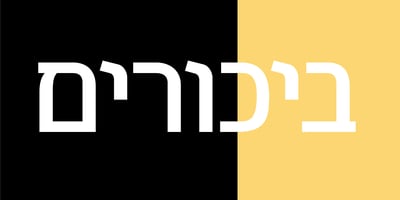
The Lakreeut MF Font is exceptionally well-suited for projects that demand a majestic, sacred, or monumental feel. Its design often draws inspiration from ancient or traditional scripts, making it an excellent choice for religious texts, historical documents, and academic publications related to archaeology or cultural studies. It's also ideal for museum exhibits, commemorative plaques, and formal scrolls, where a sense of enduring legacy and authenticity is desired. Furthermore, consider Lakreeut MF Font for book covers for historical non-fiction, educational materials on ancient cultures, and branding for institutions with a deep-rooted heritage. Its strong, authoritative presence can also be leveraged effectively in monuments and spiritual art.
What makes the Lakreeut MF Font so exciting is its profound ability to transport viewers to a distant past, evoking the reverence and weight of ancient inscriptions. It often features robust, chiseled letterforms or a dignified rhythm that sets it apart from more contemporary typefaces. This characteristic allows it to communicate a sense of enduring wisdom, historical authenticity, and profound cultural importance, making your message resonate with significant depth. It's a font that doesn't just display information; it whispers tales from antiquity, adding a layer of monumental strength and captivating appeal to any project that seeks to honor heritage and history. Its distinctive nature ensures your work will possess a unique and authoritative character.
The Lakreeut MF Font family typically focuses on delivering its strong and stately design, often featuring a primary Regular weight. Due to its specialized, historically inspired nature, the family might also include specific bold variations that maintain its classical integrity. It will likely include comprehensive character sets for its intended language or script, often with specific vowels and diacritics to ensure proper and authentic rendering of sacred and historical texts. These elements allow designers to precisely replicate ancient typographic styles and convey their profound meaning.